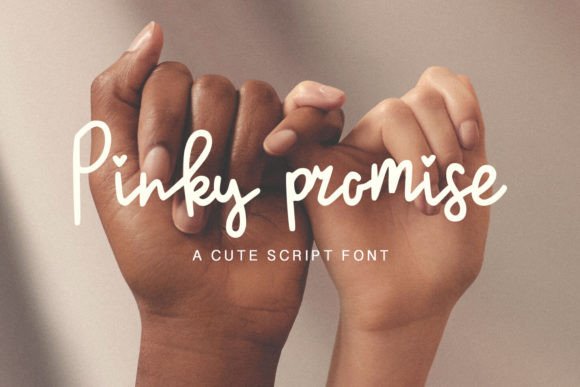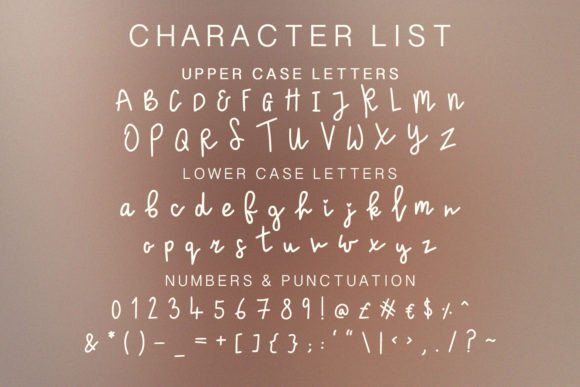
Pinky Promise Font: Cute Script Typography for DIY & Cricut Projects
About the Pinky Promise Font
Introducing the Pinky Promise Font, a beautifully crafted typeface designed to elevate your creative projects. Pinky Promise is a cute girly script typeface perfect for any fun quirky design work! This font can be used for anything such as T-shirt designs, phone cases, greeting cards, invitations, mugs and so much more! Get creative!
Pinky Promise’s playful, rounded forms work best in headlines, short text blocks on packaging, and playful branding materials for products targeting a young, female demographic. It’s ideal for projects needing a touch of whimsy and charm, such as children’s books, invitations, or social media graphics. However, its low x-height and decorative nature make it unsuitable for body text or UI elements requiring high readability.
Pair Pinky Promise with a clean sans-serif like Lato for a balanced contrast, or a geometric sans-serif such as Montserrat for a more modern feel. For a more sophisticated look, consider pairing it with a delicate serif font like Playfair Display. Avoid pairing it with other script fonts, as this could create visual clutter.
The overall personality is undeniably youthful and cheerful; it exudes friendliness and approachability, but lacks the sophistication for formal or high-end applications.
Pinky Promise Font Usage Examples
Pinky Promise Font Example